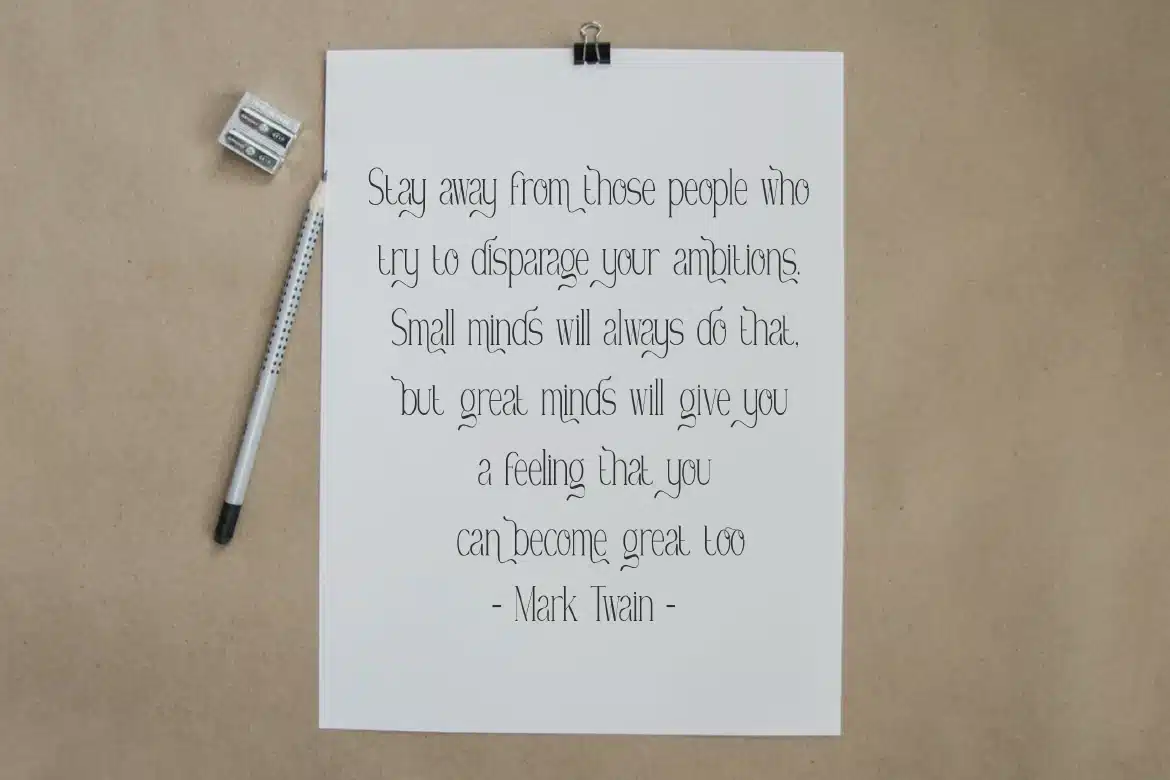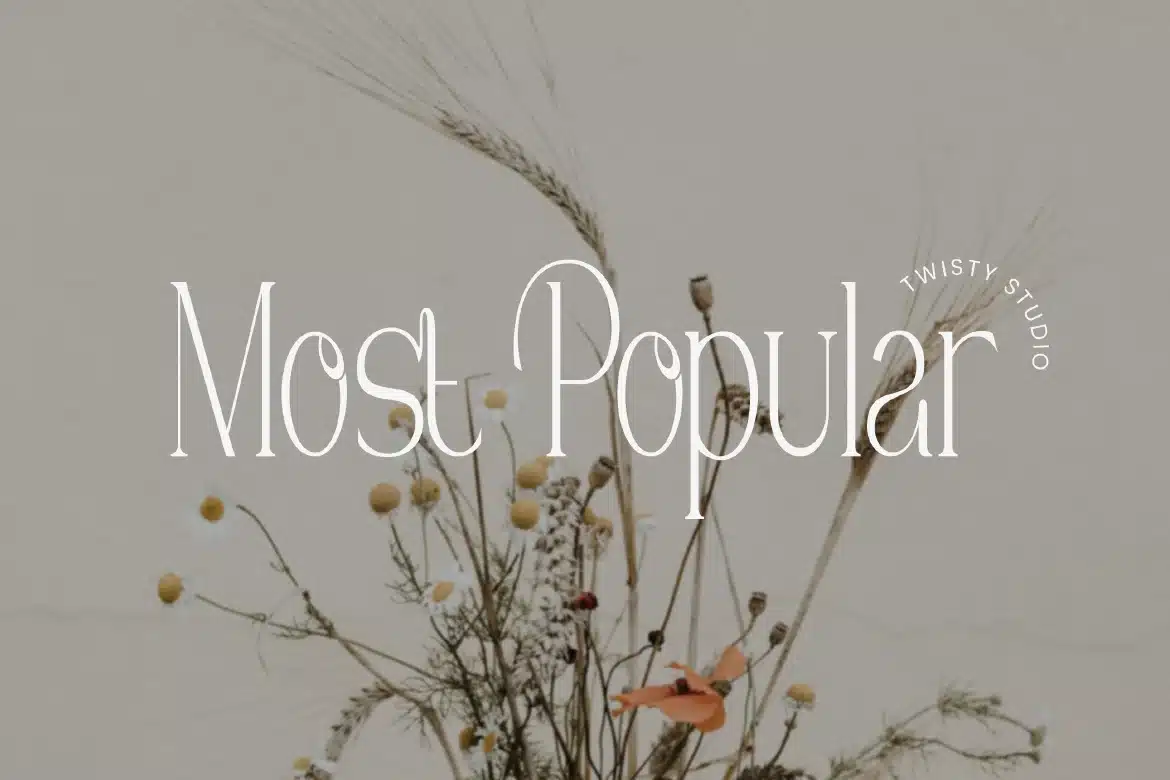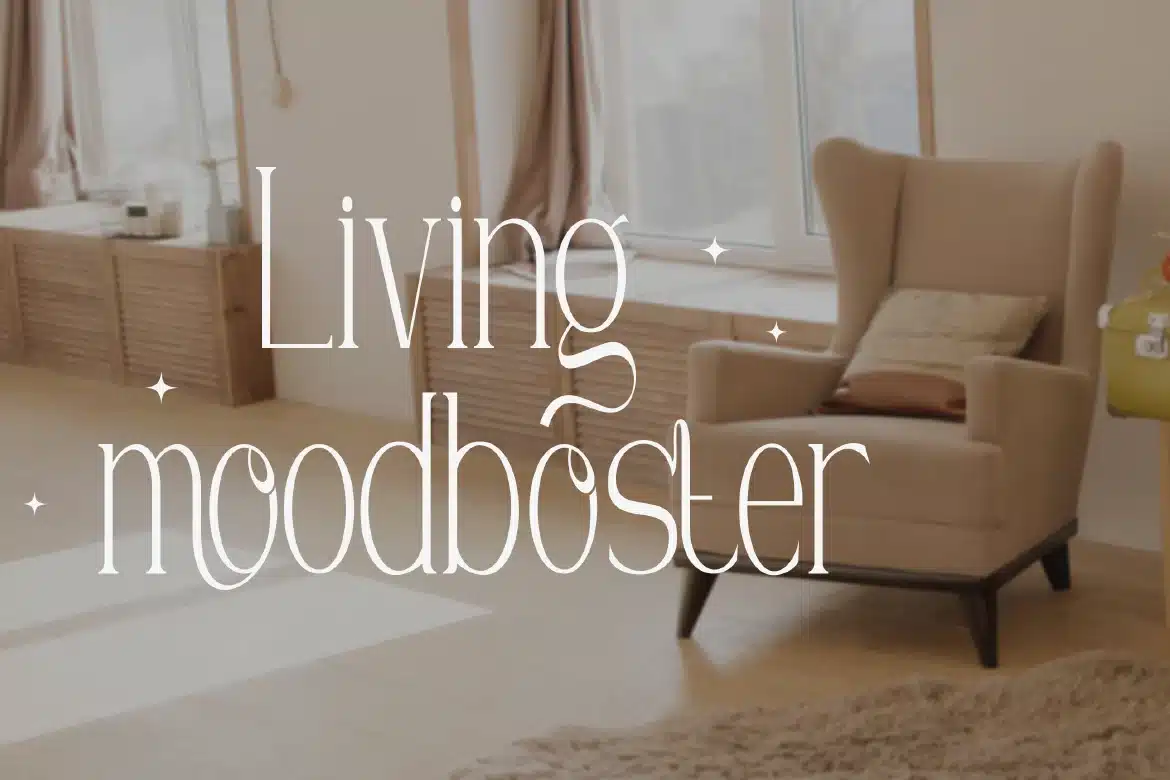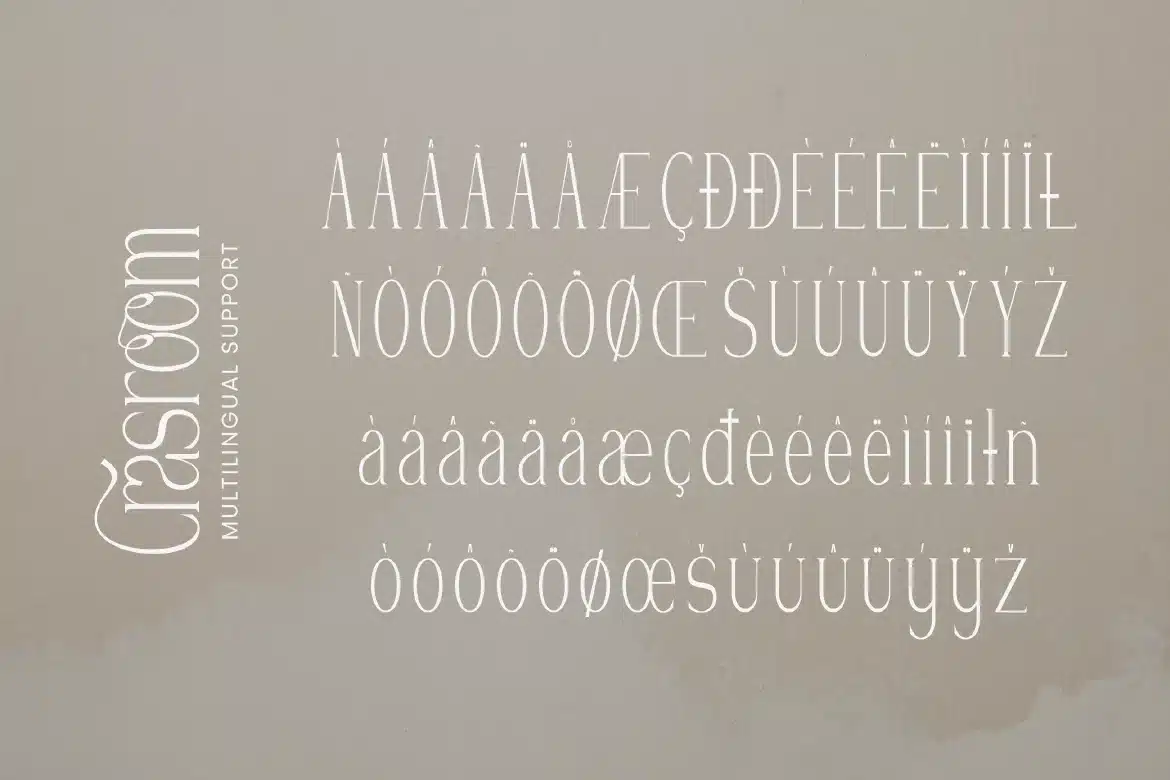
Modern Stylish Serif Font – Crasroom
Modern Stylish Serif Font - Crasroom
Crasroom is a modern stylish serif font that blends contemporary elegance with refined classic details. Designed with sharp serifs, balanced proportions, and smooth curves, Crasroom delivers a sophisticated and fashionable look that instantly elevates any design. Its modern structure keeps the typography clean and versatile, while the stylish serif details add character and personality. This combination creates a strong visual presence that feels both luxurious and approachable, making it suitable for a wide range of creative applications.
Who Should Use Crasroom?
Crasroom is ideal for designers, creatives, and brands looking for a serif font with a modern and stylish identity. It’s especially suited for projects that require elegance, sophistication, and a strong visual impact.
Luxury branding and logo design
Fashion and beauty projects
Editorial and magazine layouts
Packaging and product design
Wedding and invitation design
Social media graphics
Advertising and promotions
Elegant typography compositions